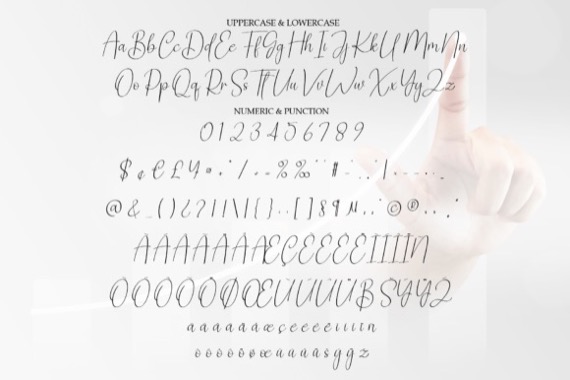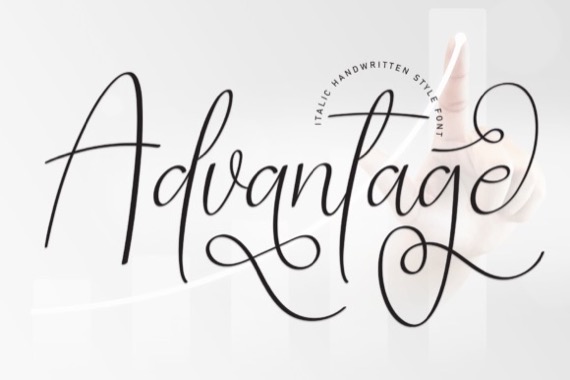
Advantage Font
by Andika Studio
Introducing Advantage Font is an elegant and special creative handwritten font product for you, our products will give you an extraordinary experience.
Its latest style letters are perfect for wall displays, wedding invitations, social media post logos, advertisements, product packaging, product designs, labels, photography, watermarks, invitations, stationery, and any project that requires taste handwriting.
Advantage Handwritten Script Font